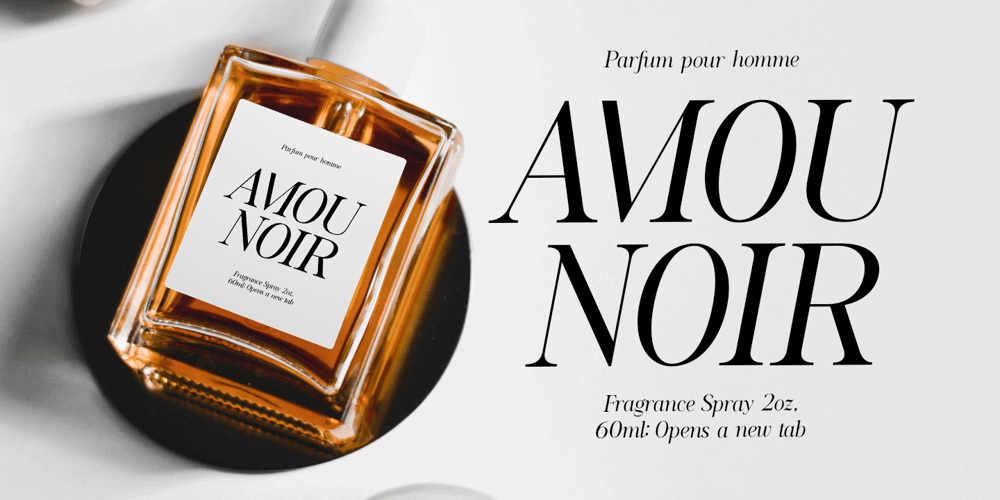
Romelu Vomelu
Romelu Vomelu font
Romelu Vomelu Font Family was designed by Ahmad Ramzi Fahruddin and published by Arterfak Project. Romelu Vomelu contains 2 styles and family package options. Introducing Romelu Vomelu, a stylish font with a modern concept. Inspired by classic serif fonts and beautiful italics to elevate a logo or display. Romelu Vomelu is a font that is easy to mix and match with other fonts such as sans serif, script and signature, and even the italic font itself.This font consists of Regular and Italic which you can also use for body text, with a medium size, this font is designed to maintain readability and legibility so that it is also suitable for branding your product.Equipped with dozens of ligatures & special characters that can make your design more attractive and classy.What you’ll get : Uppercase Lowercase Numbers & punctuation Symbols Stylistic alternates Ligatures Accented characters Thank you for your support!